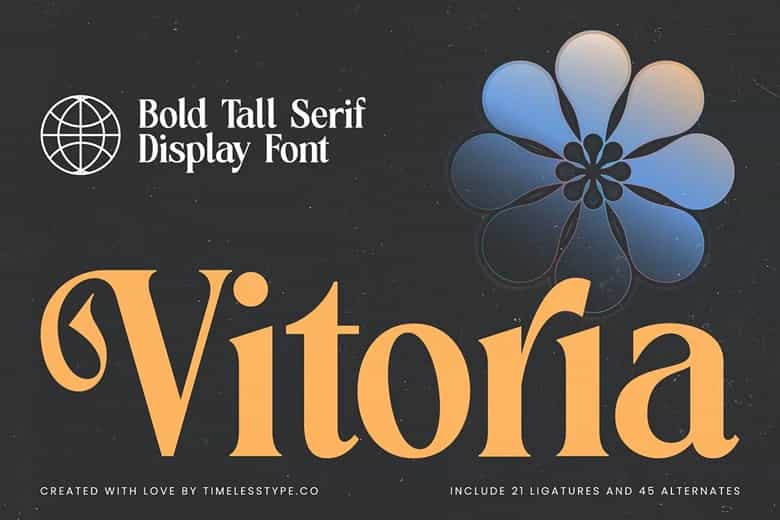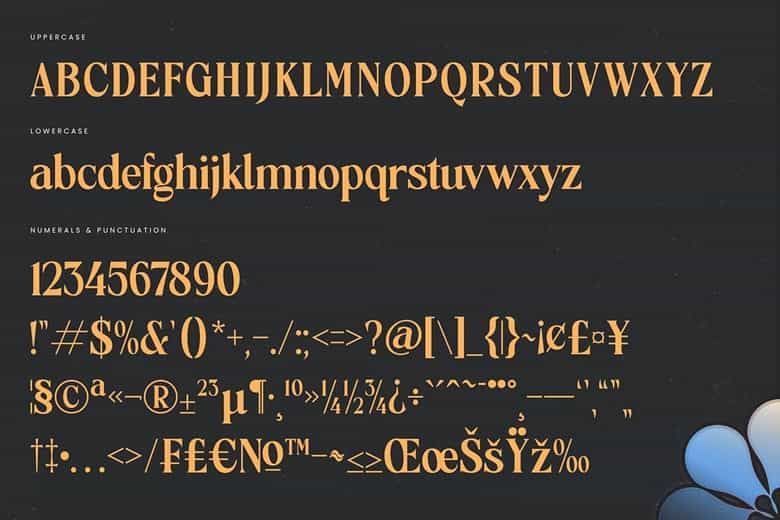
Vitoria is a bold tall serif display typeface, It’s suitable for any projects such as: Logos, branding projects, homeware designs, product packaging, mugs, quotes, posters, shopping bags, T-shirts, book covers, name card, invitation cards, greeting cards, label, photography, special events and all your other luxurious and aesthetically beautiful projects.